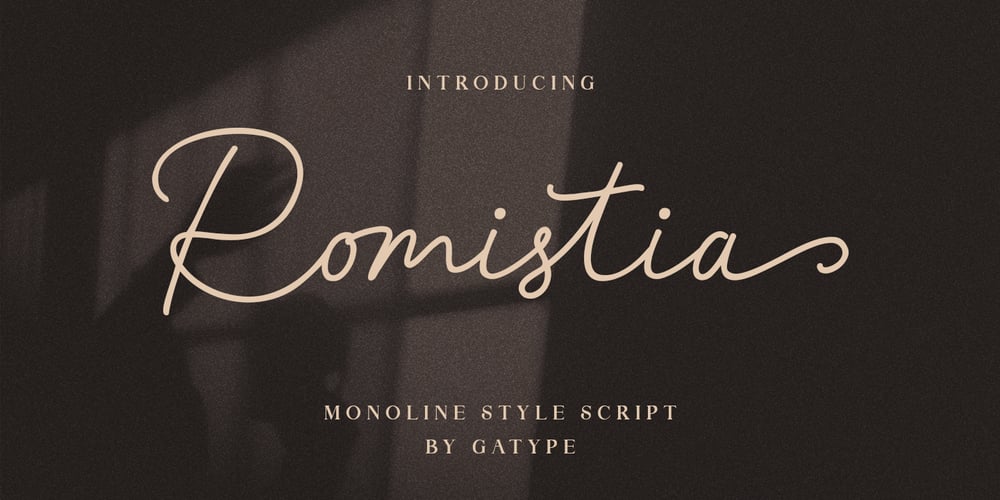
Romistia Font Family was designed by khaidir and published by Gatype. Romistia contains 1 styles and family package options. Romistia is a monoline script style font with an elegant and artistic appearance.The design resembles fine handwriting with neat strokes and a luxurious impression.Each letter is designed with a touch of detail that shows a feminine and graceful impression.This font is perfect for creative projects such as wedding invitations, logos, premium product packaging, or romantic-themed designs.Because this font has letters that are connected to each other with a natural flow, it gives the impression of a soft flow.If you are interested in using it, fonts like this are usually available in OT or TF file formats, with support for ligature features or alternative letter styles to provide flexibility in design.GreetingsGatype